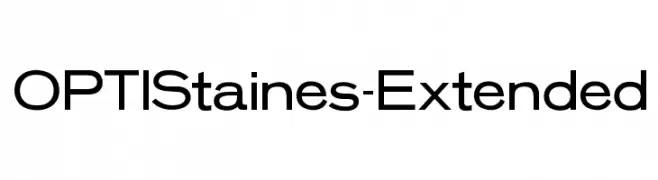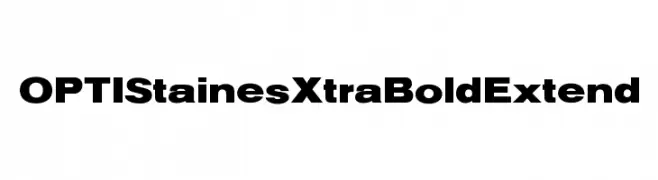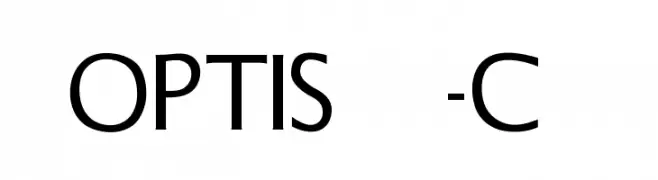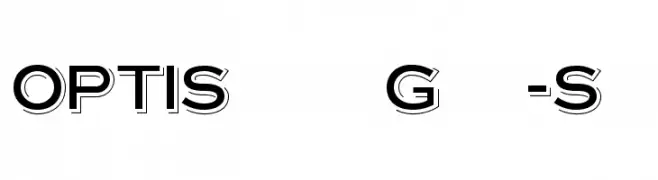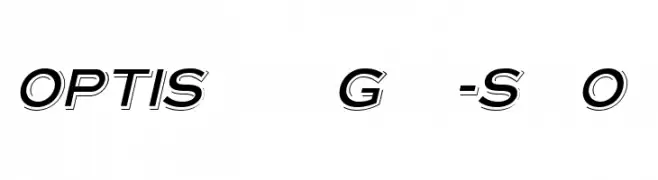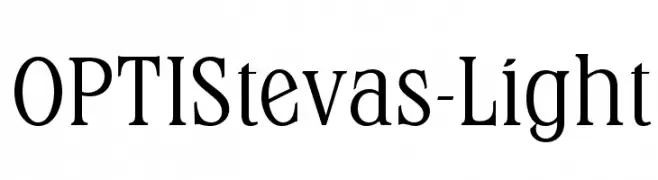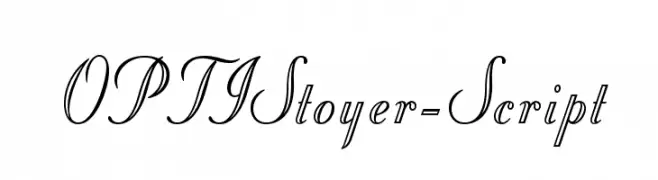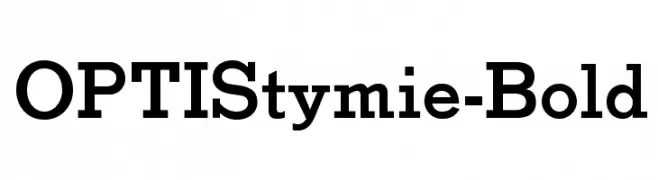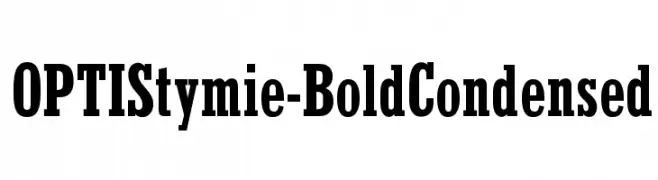
A modern, geometric sans-serif font with an extended width and clean lines.
A bold, extended font with a modern and impactful style.
A modern, geometric sans-serif font with bold uppercase letters.
A bold, shadowed font with a strong, geometric design.
A bold, industrial font with three-dimensional shading and a strong geometric style.
A bold stencil font with geometric shapes and distinct breaks, ideal for impactful designs.
A classic serif font with elegant strokes and a light weight.
An elegant script font with graceful loops and swashes, perfect for decorative use.
A bold, classic serif font with strong, well-defined characters.
A bold, condensed serif font with strong strokes and high contrast.